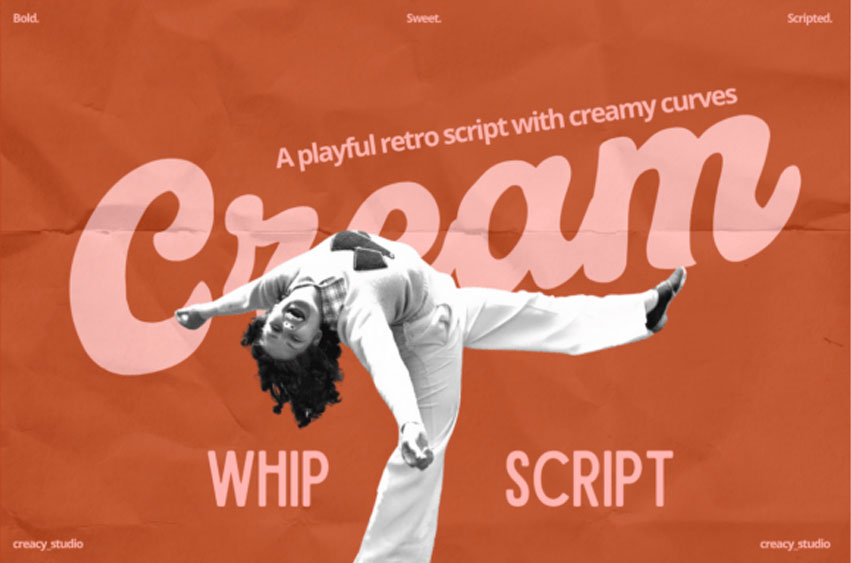
Cream Whip Font is a bold, retro brush typeface that transports you back to the era of vintage soda parlors and garnished pastries, inviting a playful yet alluring essence. The font dances with nostalgia, offering a strong impression in all creative pursuits that desire a taste of the past. Designed with voluptuous curves reminiscent of whipped cream dollops, it’s adorned with delicate ink traps and an affable rightward slant, fluidly manifesting a finesse akin to hand-brushed lettering. The meticulous design, robust strokes, and terminal flourishes cultivate each character, birthing an exclusive rhythm and coziness seldom seen in common typefaces. This intrinsic charm solidifies its place in branding, packaging, logo creations, headlines, and poster displays.
The **Cream Whip Script** transcends being just a font. Its joyful undertone of retro secures its position as a superlative choice for branding delectable desserts, crafting old-school posters, conceptualizing vintage logos, packaging, creating café menus, and fashioning trendy clothing labels and signs. It also shines a nostalgic light on your social media graphics.
Let the **Cream Whip Script** lens transport you back to simpler, sweeter times and allow it to stir up design enchantment. Answer the enticing call of the past, reignite the warmth, and embrace the welcome retro essence in your creative projects with the **Cream Whip Script**. This irresistible trip down memory lane is waiting for you!